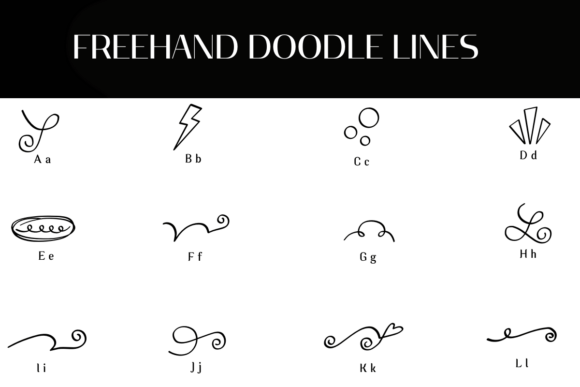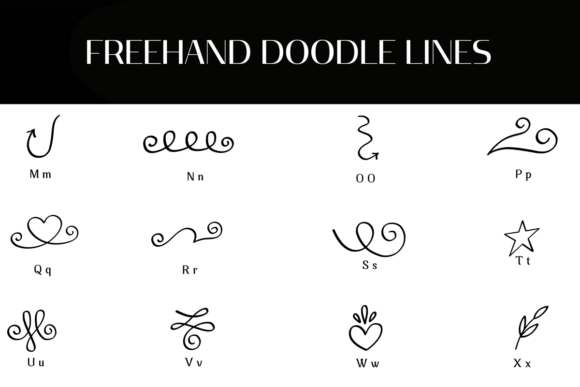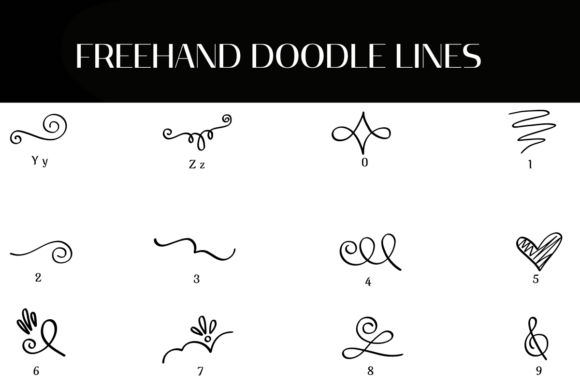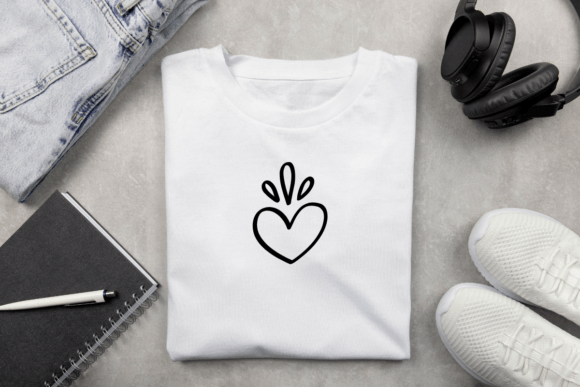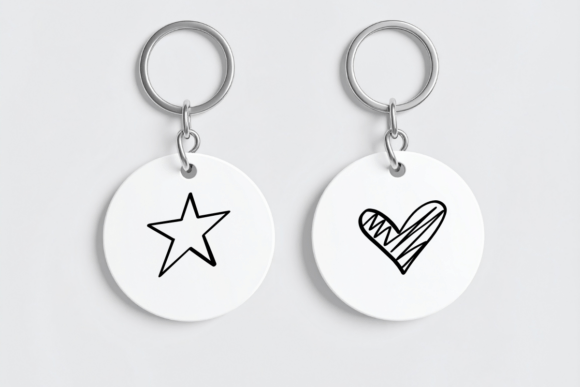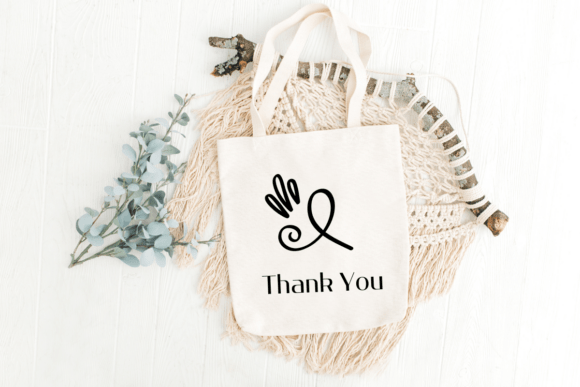
Introducing Freehand Doodle Lines Font: Unleash Your Creativity with this Cool Dingbats Font
Are you a designer, crafter, or DIY enthusiast looking for a unique and creative way to add a personal touch to your projects? Look no further than the Freehand Doodle Lines Font! This cool dingbats font is perfect for anyone who wants to add a hand-drawn, whimsical feel to their designs, and the best part? It’s completely free to use!
What is Freehand Doodle Lines Font?
Freehand Doodle Lines is a dingbats font that features a collection of hand-drawn lines, shapes, and doodles that can be used to add a decorative touch to your projects. The font includes a wide range of designs, from simple lines and squiggles to more complex shapes and patterns. With Freehand Doodle Lines, you can add a personal touch to your designs, making them stand out from the crowd.
Features of Freehand Doodle Lines Font
- Hand-drawn designs: Each character in the Freehand Doodle Lines Font has been carefully hand-drawn to give it a unique, organic feel.
- Wide range of designs: The font includes a wide range of designs, from simple lines and shapes to more complex patterns and doodles.
Ideas for Using Freehand Doodle Lines Font
Freehand Doodle Lines Font is versatile and can be used in a variety of projects, including:
- Journaling and scrapbooking: Add a personal touch to your journal or scrapbook pages with the Freehand Doodle Lines Font.
- Graphic design: Use the font to add decorative elements to your graphic designs, such as brochures, flyers, and posters.
- Crafting: Add a hand-drawn touch to your craft projects, such as handmade cards, gift tags, and wall art.
- Digital art: Use the font to add texture and interest to your digital art projects.
Freehand Doodle Lines is a cool dingbats font. Add it to your creative projects and enjoy the results!